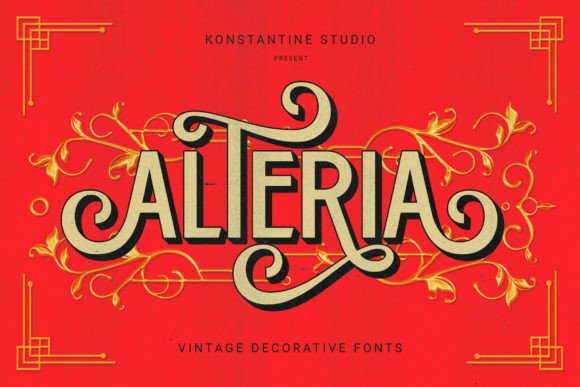
Introducing Alteria Font, the Best Font for Money Sign that will transport you back to the timeless elegance of the Victorian era. Created by konstantinestudio, this vintage decorative font captures the essence of print headlines, retro signs, newsletters, and advertising from the nostalgic 50s.
With its captivating design and meticulous attention to detail, Alteria Font is the perfect choice for all your creative endeavors. Whether you're looking to create a stunning logo, establish a strong brand identity, or add a touch of elegance to your signage and decor, this font has got you covered.
Imagine the impact of Alteria Font on your books, covers, badges, and emblems. Your readers won't be able to resist the allure of its vintage charm. And when it comes to clothing, apparel, and merchandise, this font will set you apart from the crowd, making a bold statement that leaves a lasting impression.
But Alteria Font doesn't stop there. Its versatility extends to the world of film and television as well. Imagine your movie title or serials adorned with the elegance and sophistication that only this font can provide. Your audience will be captivated from the moment they lay eyes on it.
What sets Alteria Font apart is its ability to evoke emotions and create a connection with your audience. Its timeless appeal speaks of tradition, craftsmanship, and a hint of nostalgia. It's a font that tells a story and transports your viewers to a bygone era, creating a sense of curiosity and intrigue.
And let's not forget the practicality of Alteria Font. Its impeccable legibility ensures that your message is conveyed clearly and effectively. No more struggling to decipher intricate fonts that sacrifice readability for style. With Alteria Font, you can have both.
So why settle for ordinary when you can elevate your designs with Alteria Font? This font is more than just a collection of letters; it's an experience, a journey through time, and an opportunity to captivate your audience. Don't miss out on the chance to add a touch of vintage elegance to your creations.